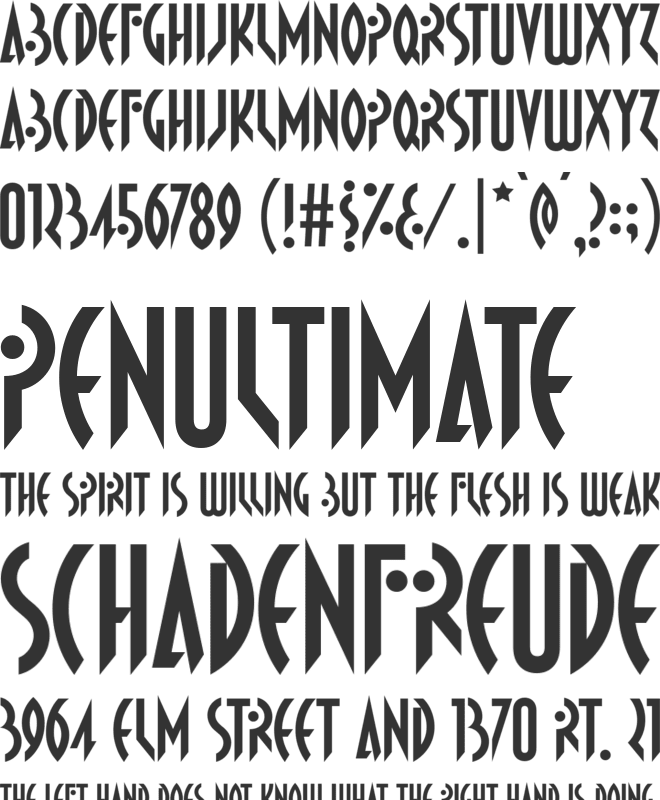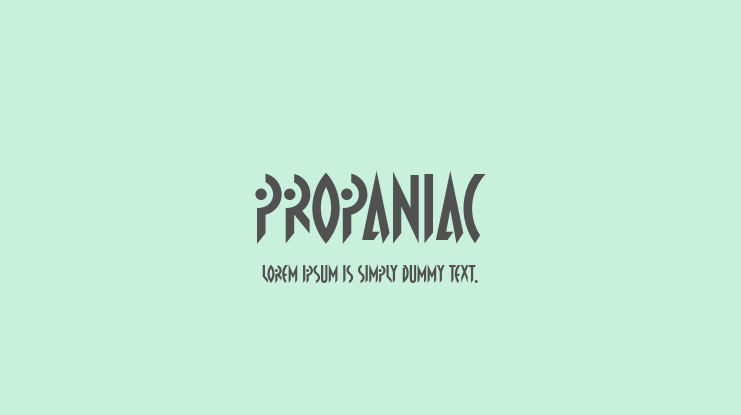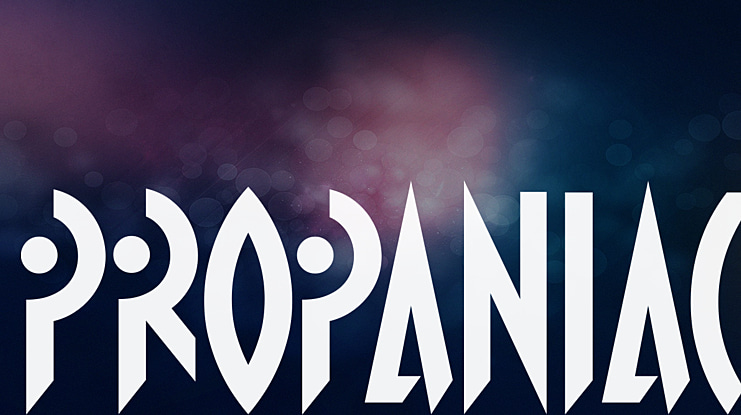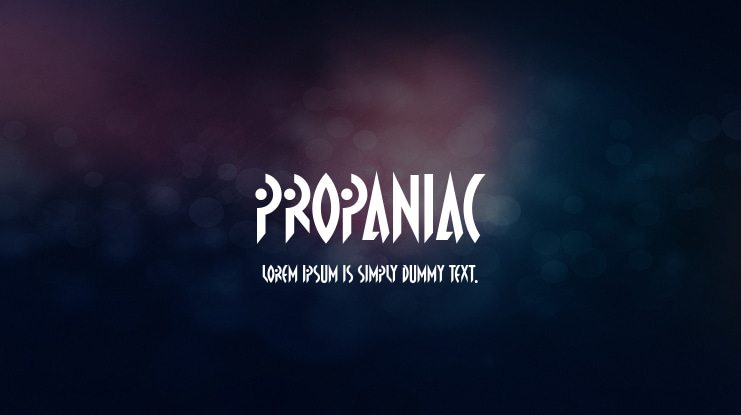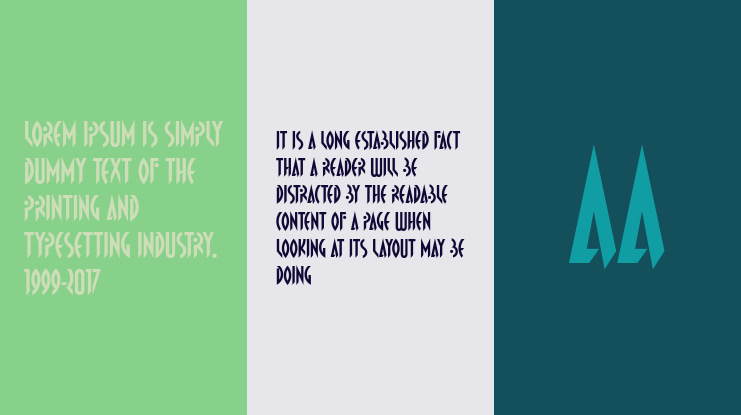
Propaniac Font
Ray Larabie
Propaniac is a 1980s-style postmodern typeface inspired by a Pointer Sisters record sleeve which was designed by Shoot That Tiger Creative Services. Almost all current Latin based languages are supported, including Vietnamese, Cyrillic languages and Greek.This font includes a license that allows free commercial use: sometimes referred to as a desktop license. This allows you to install the font on a computer and use it to create posters, web graphics, game graphics, t-shirts, videos, signs, logos and more. Read the license agreement for details.If you’d like to embed this font in an app, ebook, on the web or anything that’s not covered by the desktop license agreement, visit the link below. You'll find distributors who offer different types of licenses or you can contact me for help.typodermicfonts.com/propaniac (http://typodermicfonts.com/propaniac)